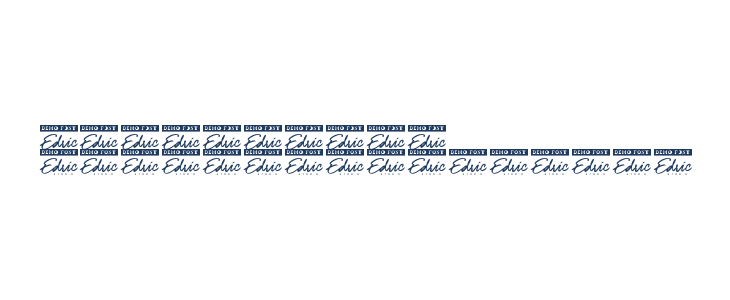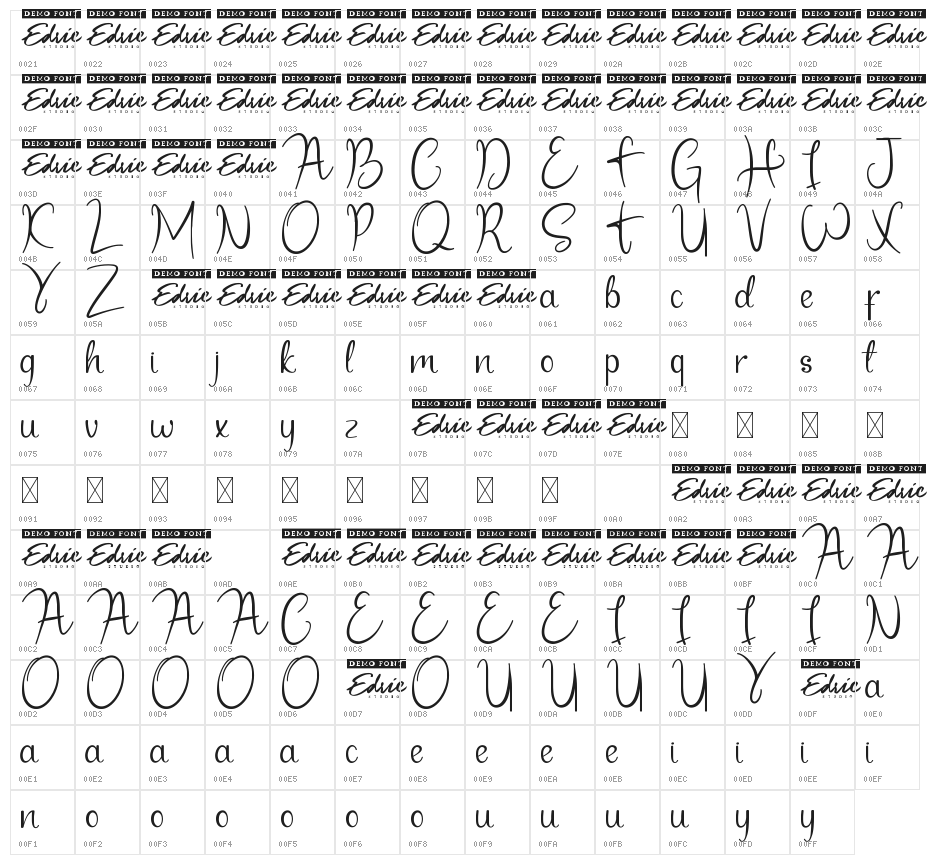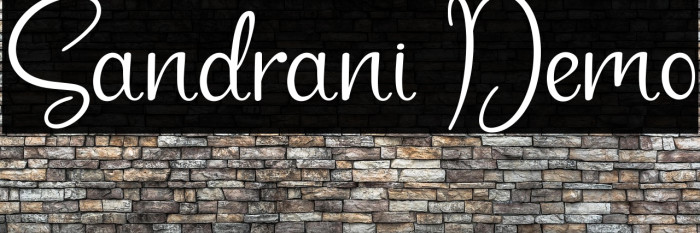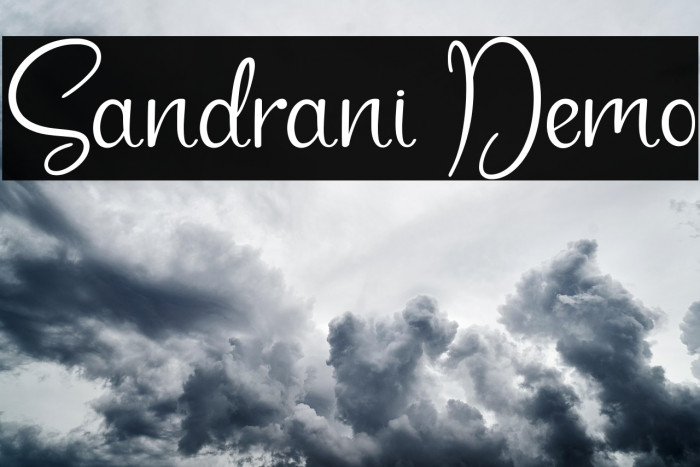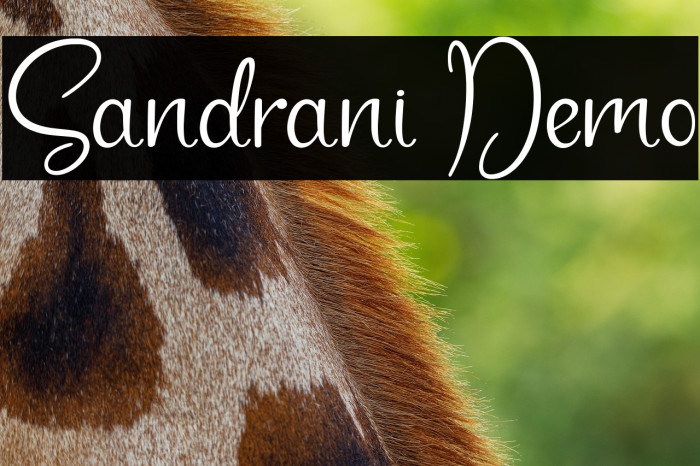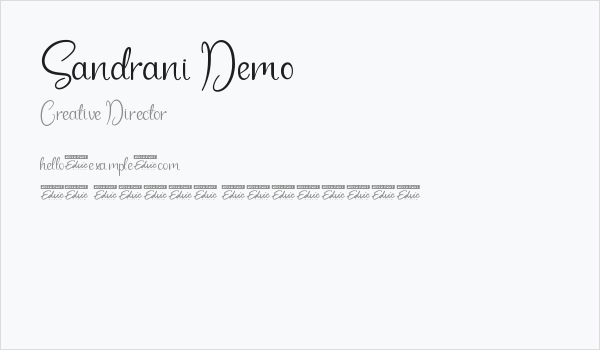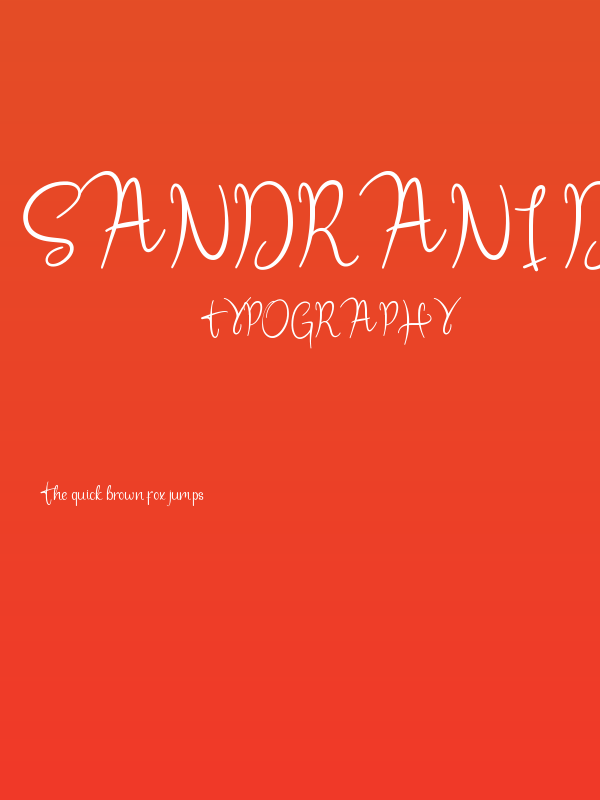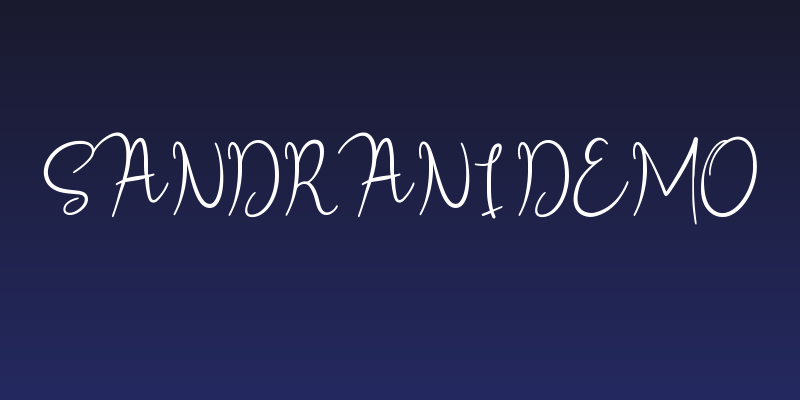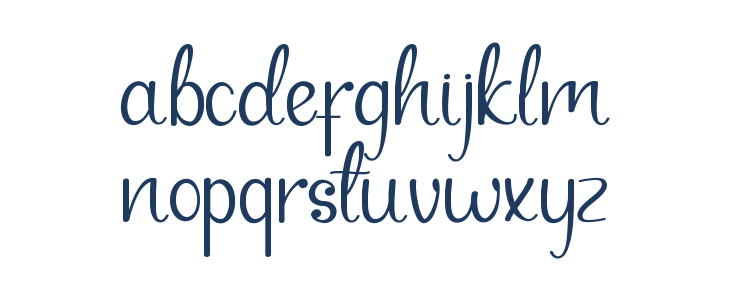
Sandrani Demo Font
Sandrani Demo Description
This font features a playful and elegant script style, characterized by its flowing, cursive letters that convey a sense of movement and grace. The uppercase letters are tall and slender, with a slight slant, while the lowercase letters maintain a consistent baseline with gentle curves and loops. The font's overall appearance is both sophisticated and approachable, making it suitable for a variety of design projects. The characters are well-spaced, ensuring readability while maintaining the font's artistic flair. Its unique style is perfect for adding a personal touch to any design, whether for invitations, branding, or decorative purposes.
| Proposed Projects | Ideal for wedding invitations, branding, greeting cards, and decorative projects. |